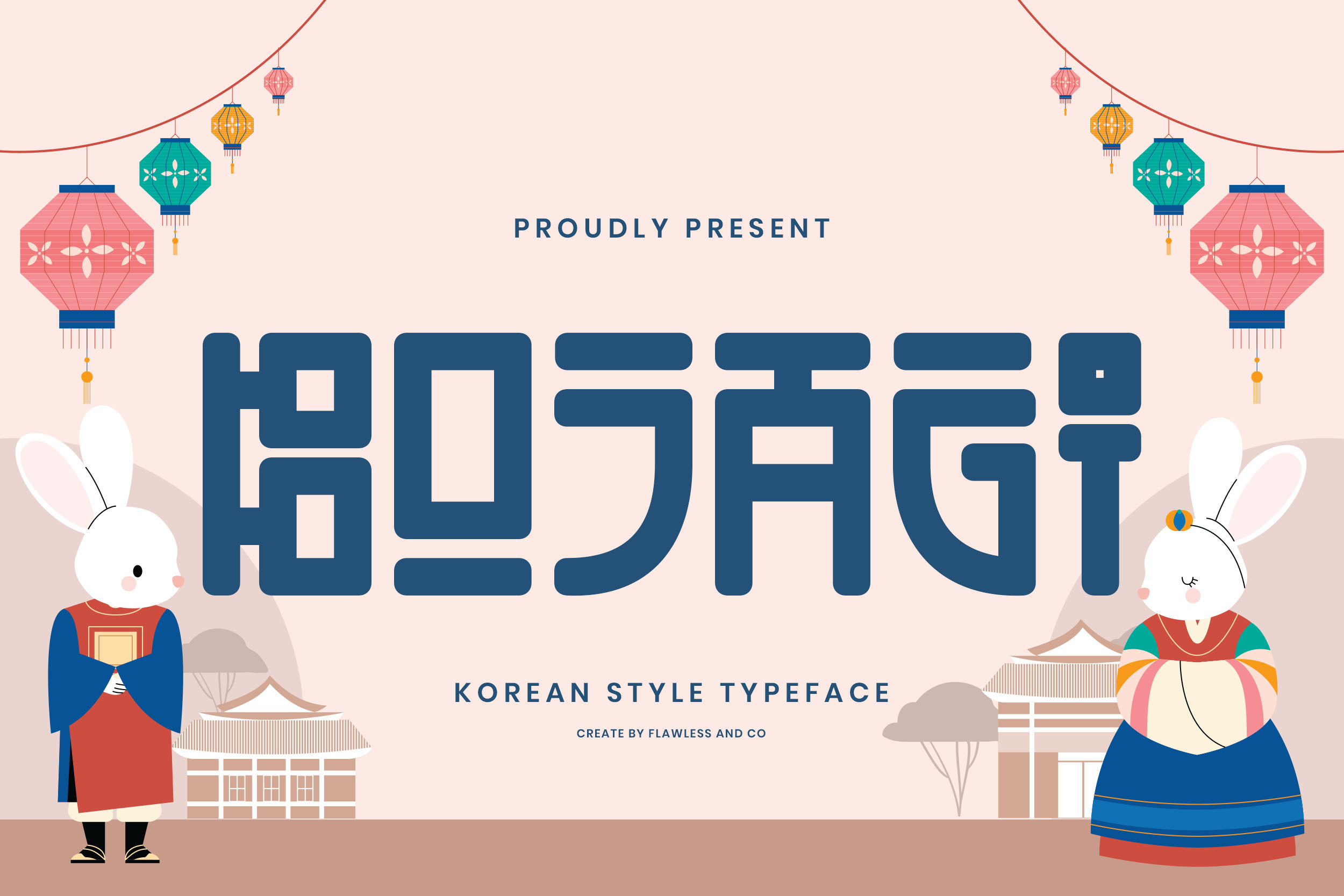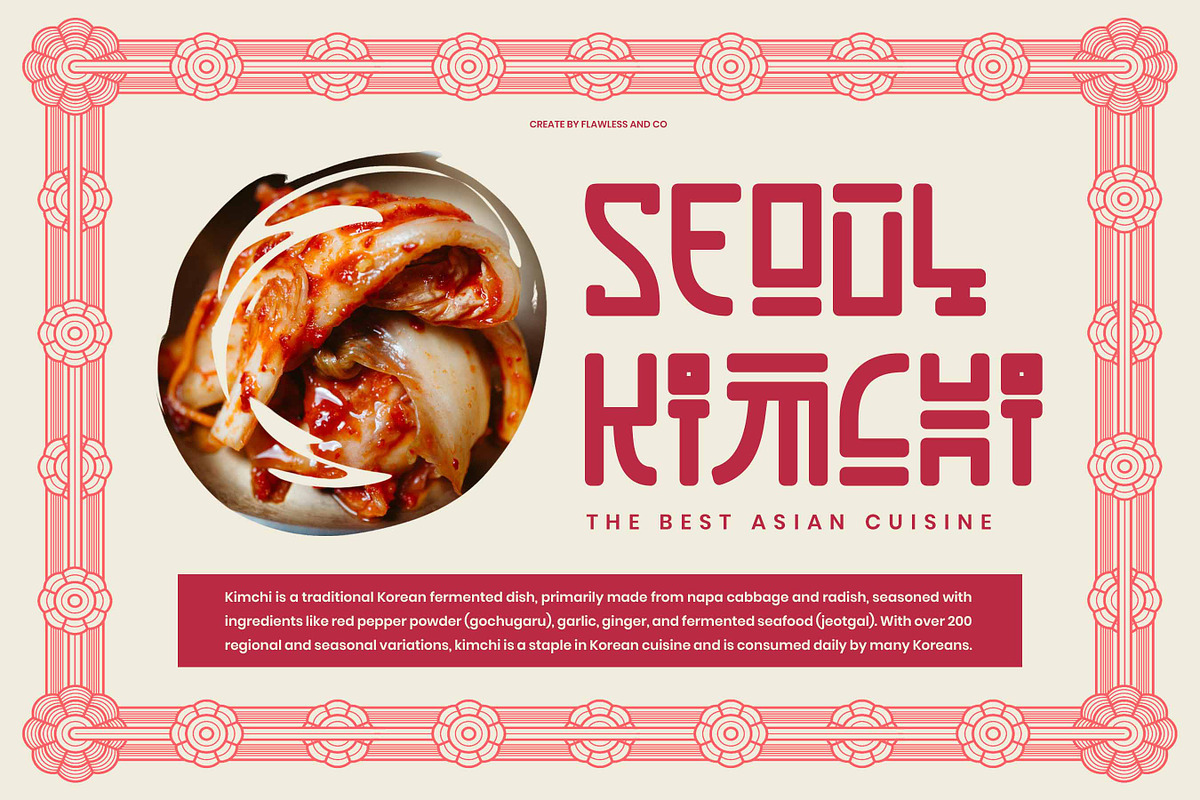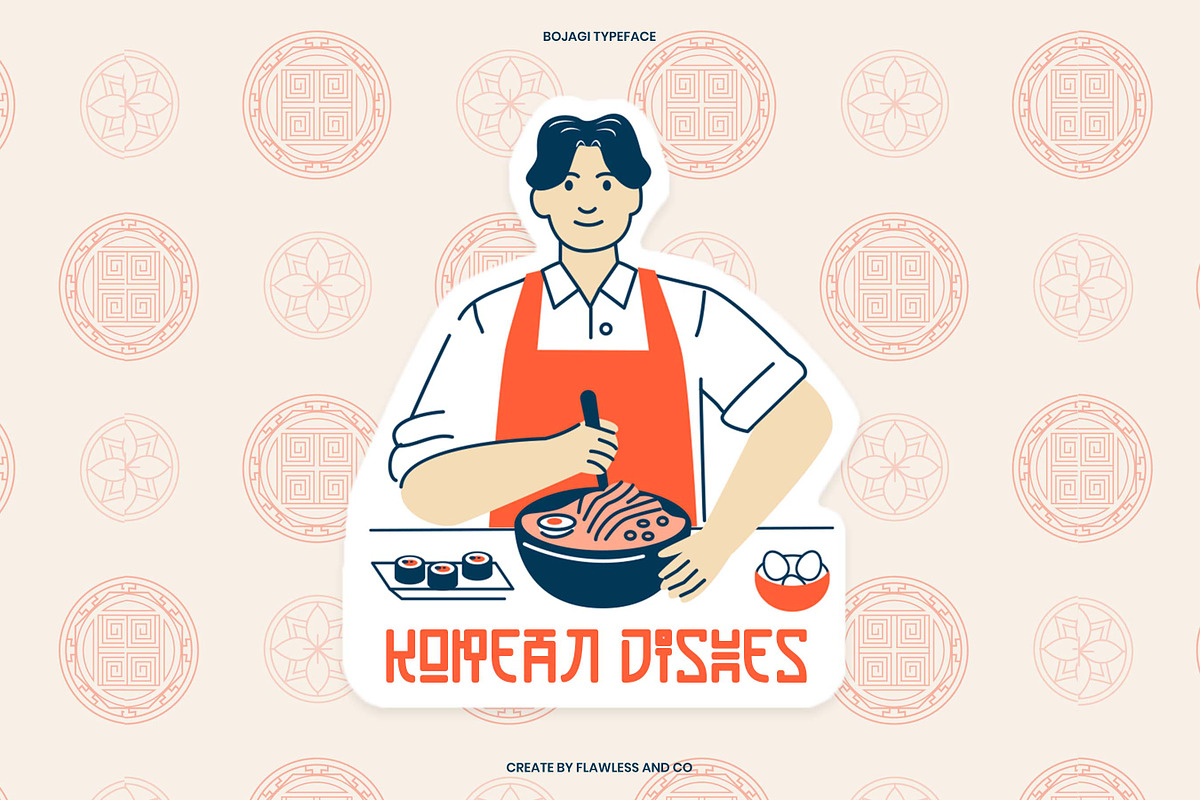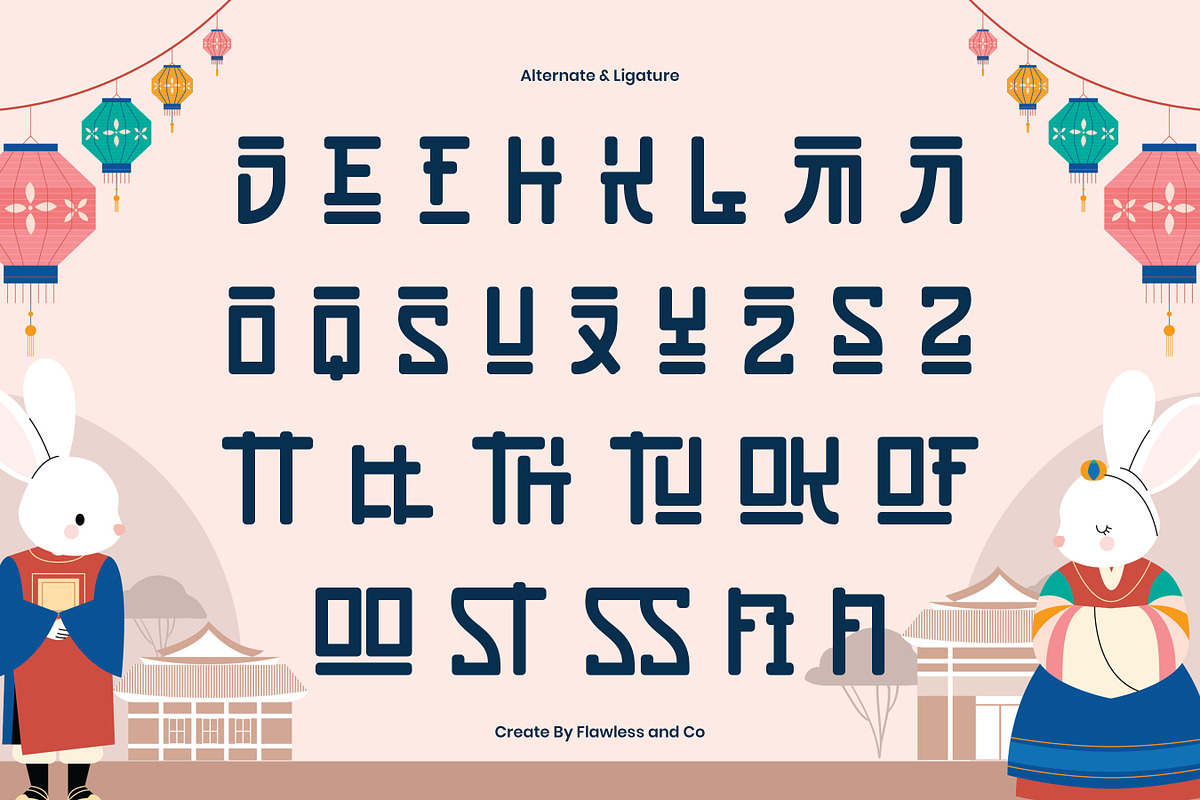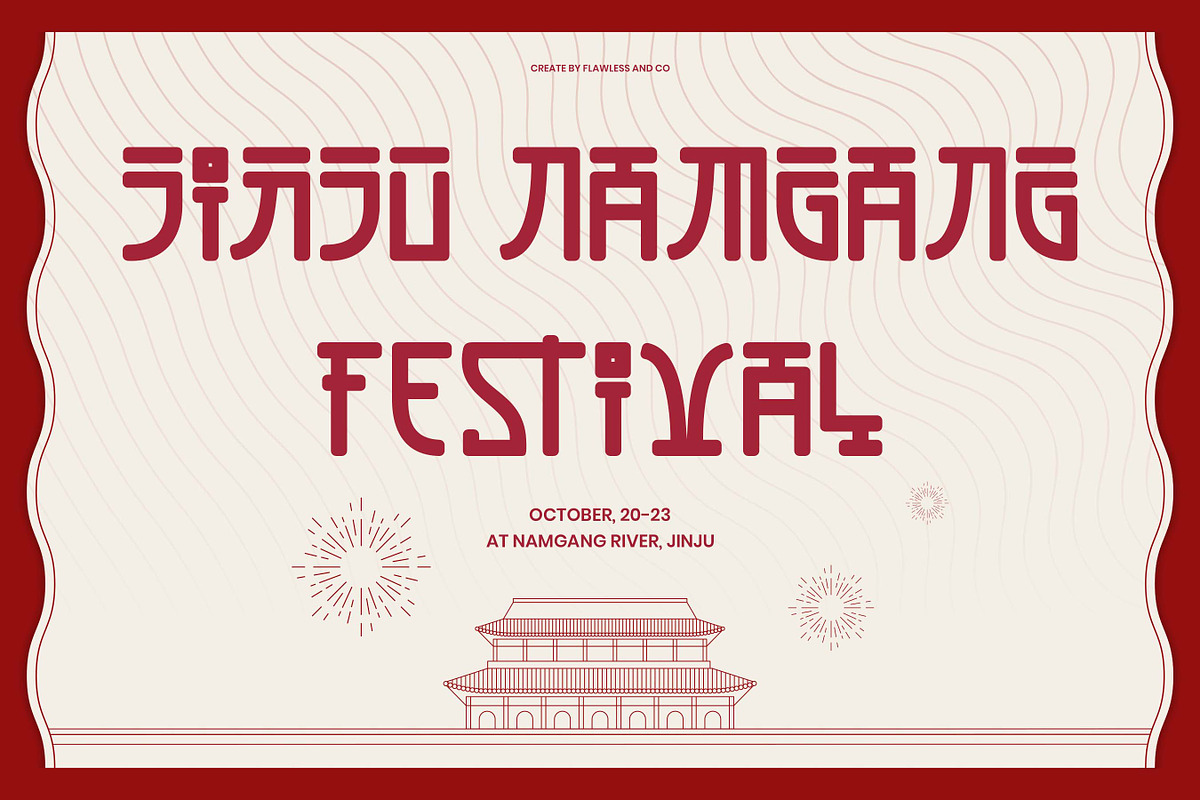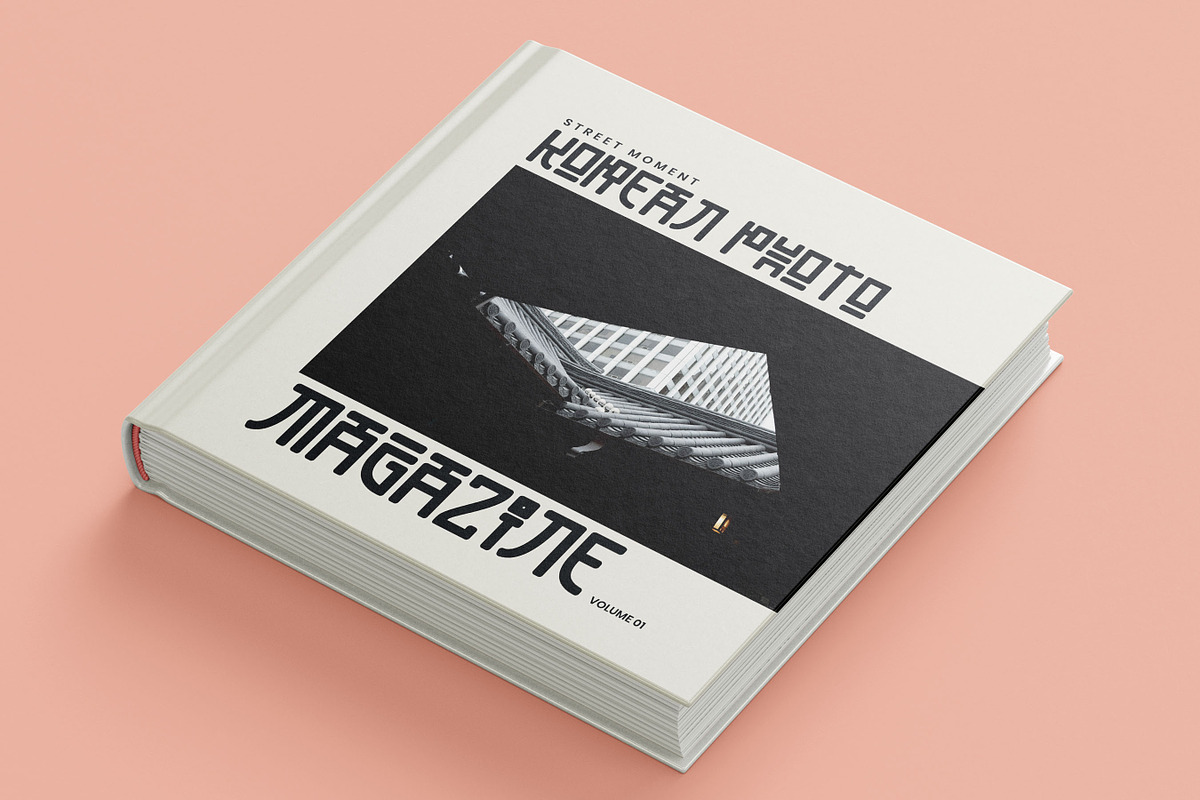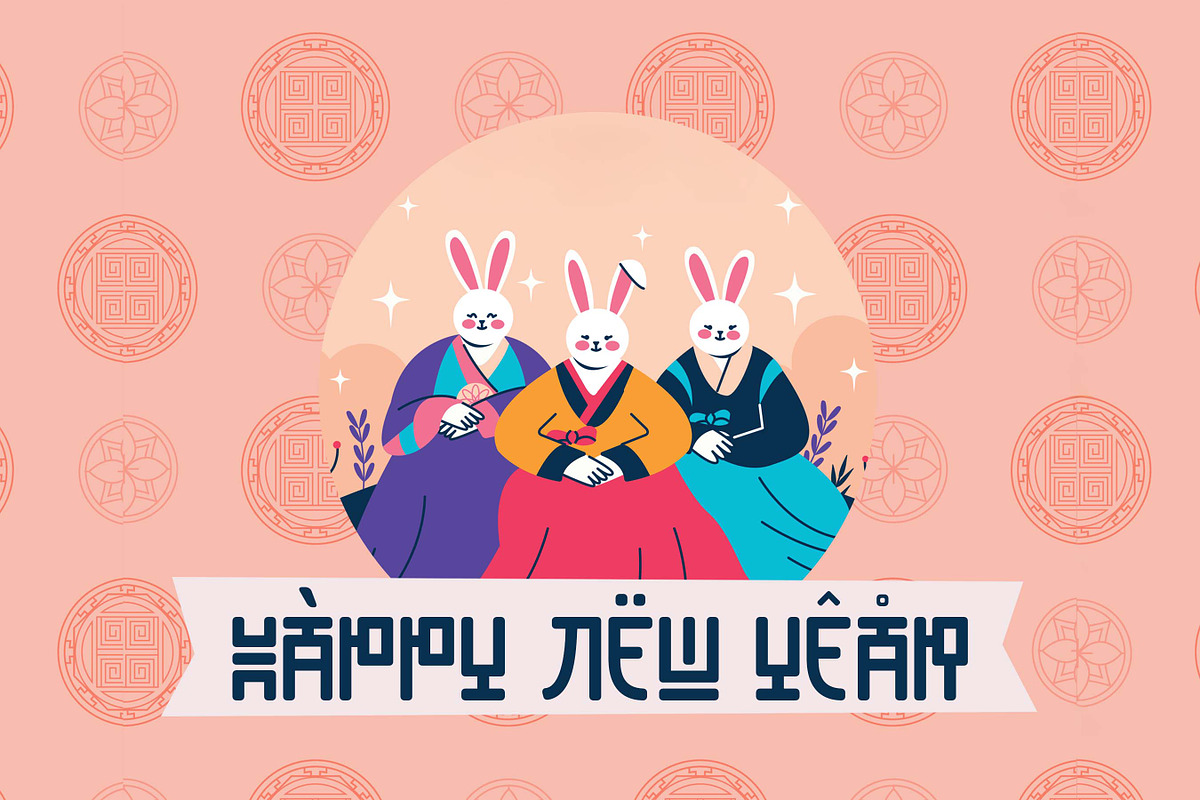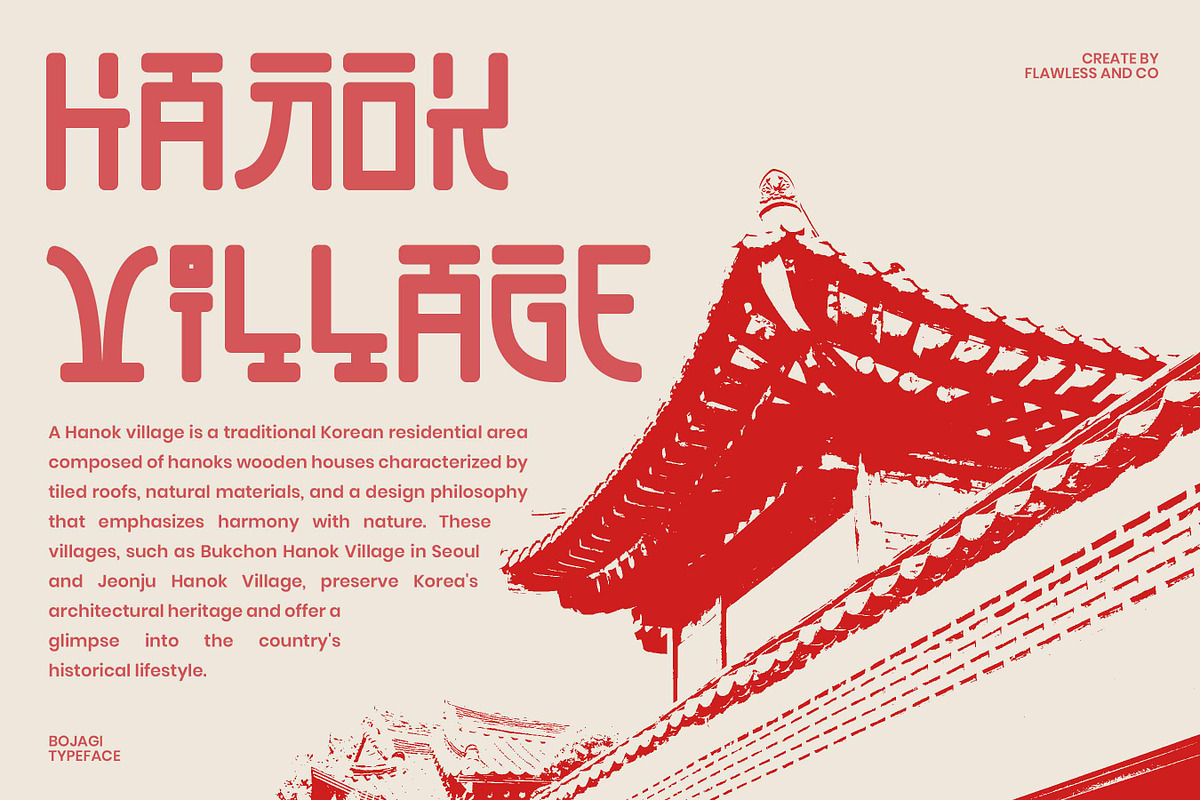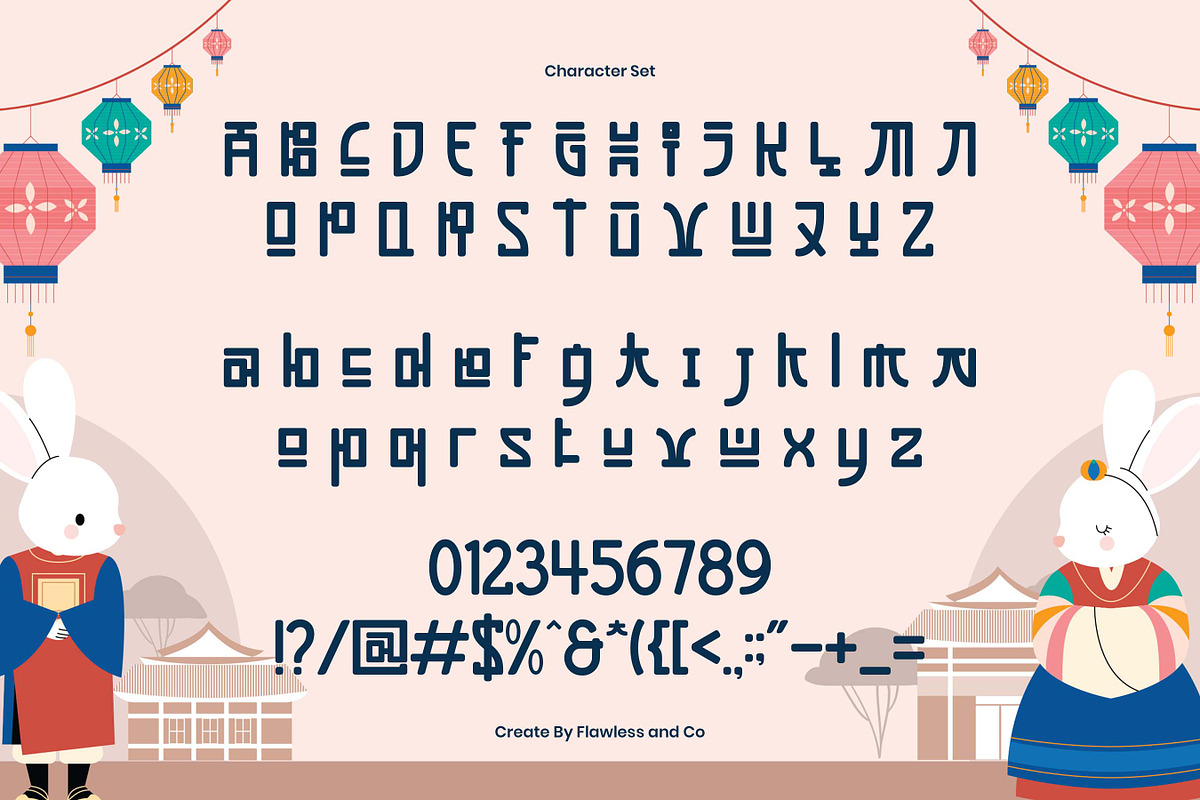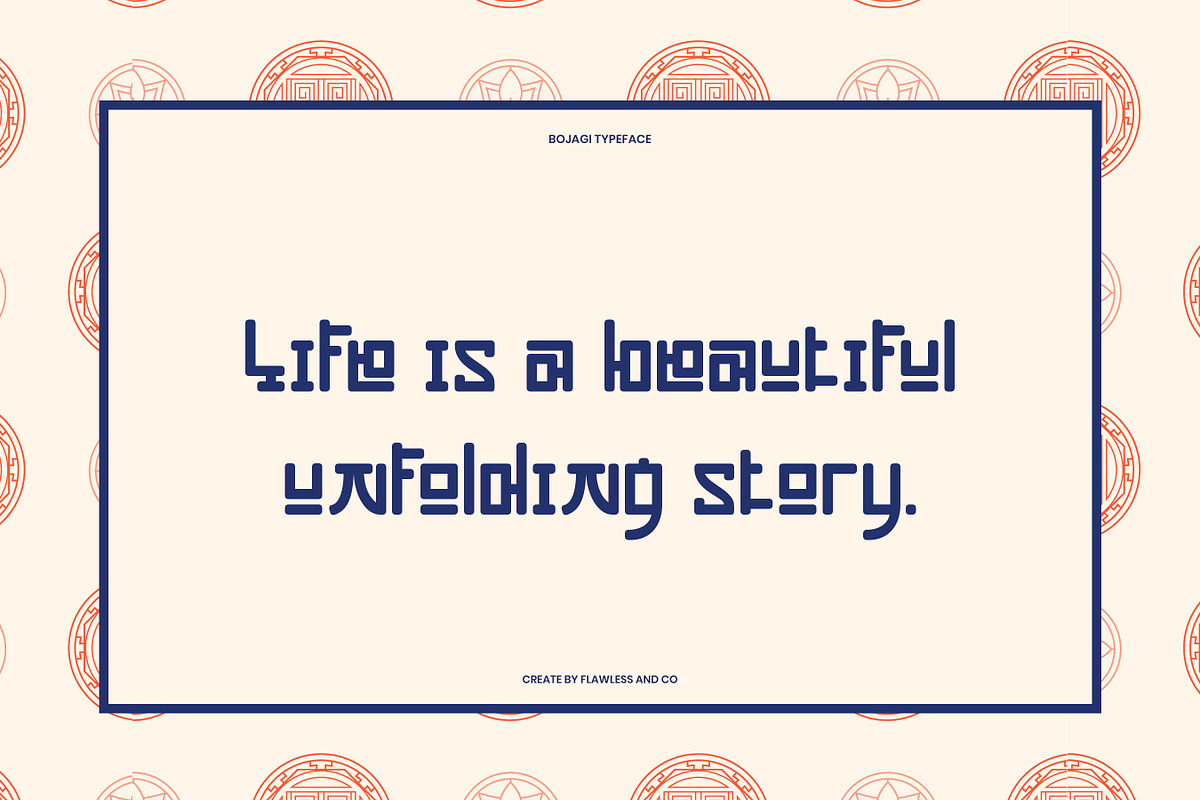
Bojagi - Korean Style Typeface Font
BOJAGI – Korean Style Typeface
BOJAGI is a unique and charming Korean-style typeface inspired by traditional Hangul forms and Korean cultural aesthetics. With its soft, rounded shapes and geometric construction, BOJAGI captures the spirit of Korean heritage while maintaining a modern, approachable vibe. Perfectly balancing tradition and playfulness, BOJAGI is great for designs that want to celebrate Asian themes, cultural storytelling, or simply bring something fresh and distinctive into the layout. Whether you're designing a food packaging, children’s book, or cultural branding, BOJAGI will instantly elevate your message with personality and charm.
- Uppercase Typeface
- Cultural-inspired strokes with modern clarity
- Multilingual Support Use BOJAGI to wrap your ideas in design that feels rich, respectful, and refreshingly original.
Who Should Use BOJAGI?
BOJAGI is perfect for designers, creators, and brands who want to infuse their projects with a touch of Korean culture and playful modernity. Whether you're working on cultural campaigns, themed packaging, or children’s products, BOJAGI helps your design stand out with authenticity and warmth. It's especially ideal for:
- Creative agencies exploring Asian or Korean visual themes
- Branding specialists working on Korean food, fashion, or beauty products
- Illustrators and storytellers crafting culturally inspired visuals
- Educators and publishers designing playful and educational materials
- Social media content creators wanting bold, unique typography
A Must-Have Font for Brand Creators and Designers
BOJAGI is a bold and playful Korean-style typeface that brings cultural richness and distinctive personality into your designs. Inspired by traditional Korean aesthetics, its unique letterforms blend rounded edges with geometric precision — creating a perfect harmony of modern style and heritage feel. Whether you're crafting brand visuals, social media graphics, or editorial layouts, BOJAGI stands out with its friendly yet impactful character. This typeface is not just a design tool — it’s a celebration of cultural identity.
Why Choose BOJAGI for Your Projects?
BOJAGI offers a fresh take on Korean-inspired typography, making it a standout choice for designers who want to bring authenticity, warmth, and uniqueness into their creative work. Its modern-retro feel and rounded block shapes give your designs a memorable character — perfect for both digital and print applications. Whether you're designing a food brand, cultural event poster, packaging, or playful headline, BOJAGI adds a distinctive charm that connects emotionally with audiences and elevates your visual storytelling.
Suitable For:
- Korean food & restaurant branding
- Asian-themed event posters and merchandise
- Children’s products and educational content
- Social media graphics & content with Korean aesthetic
- Cultural books, magazines, or travel materials
- Packaging for cosmetics or lifestyle products inspired by Korea